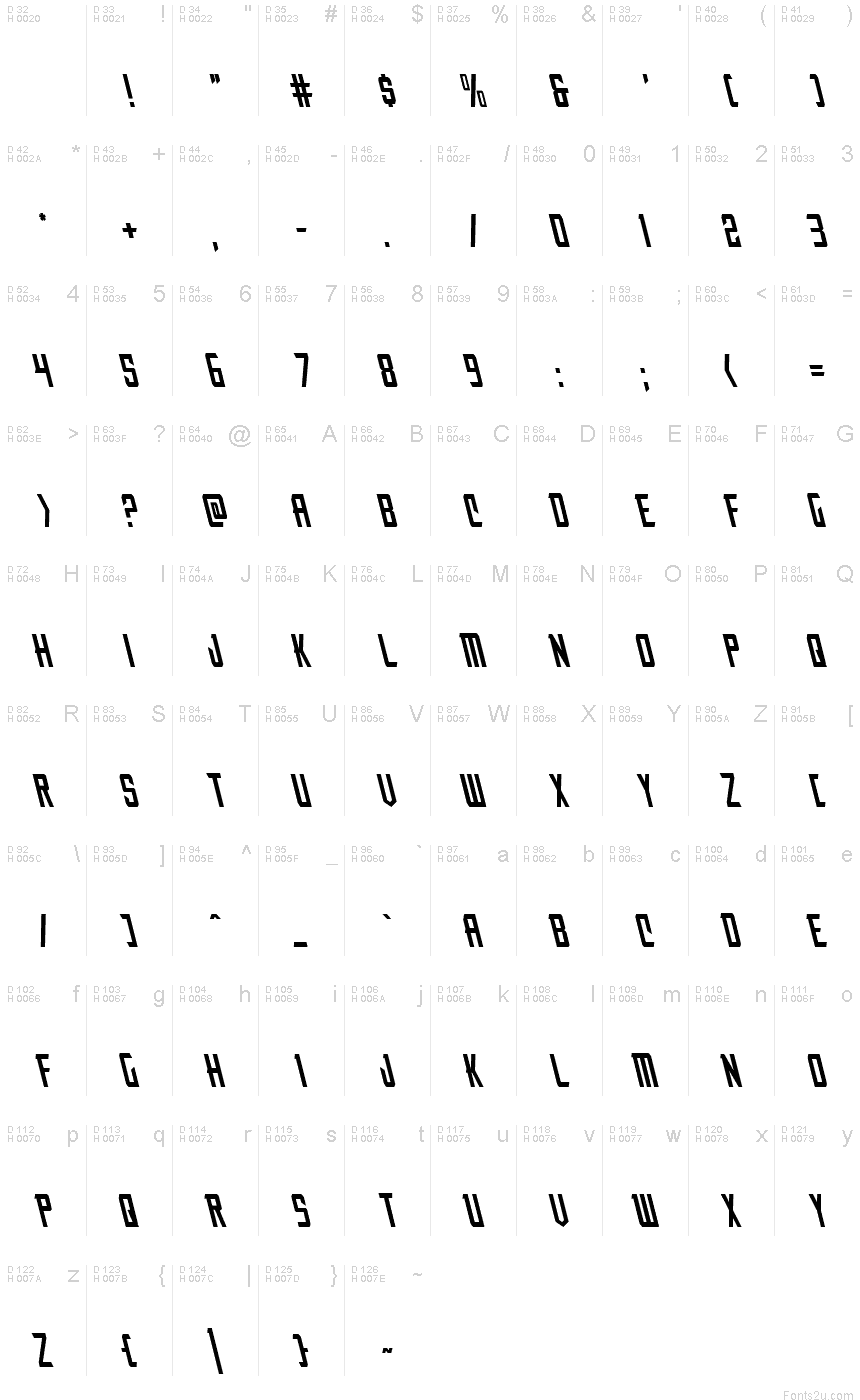
Nemesis Enforcer Leftalic, created in 2012 by Iconian Fonts, is a free futuristic display font with an aggressively condensed, left-leaning stance. Tall letters, abrupt diagonal cuts, and tight internal gaps give the lettering a hard mechanical silhouette.
Game title screens are its clearest use, especially for combat or racing themes. Its compressed force also suits esports branding, science-fiction posters, and industrial album covers. There, the jagged letters can become a faction badge or machine-panel emblem rather than neutral text.